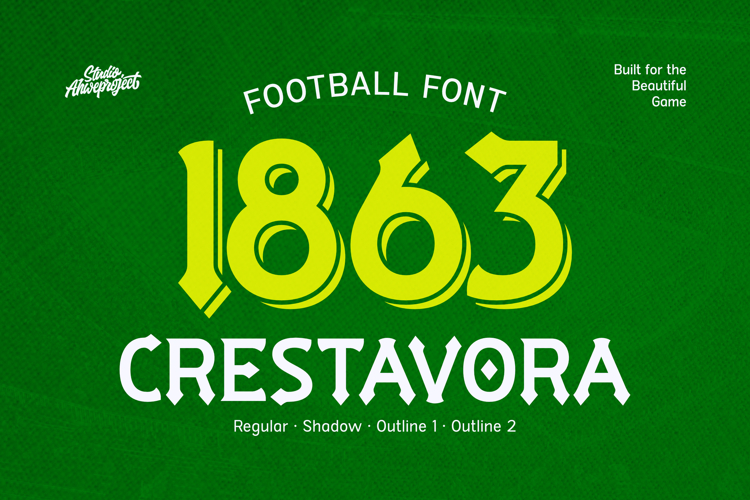
Crestavora
Crestavora is a bold decorative football font inspired by the powerful character of classic English football crests. Its sharp serifs, angular cuts, and distinctive letter shapes create a fierce, competitive look that immediately captures the spirit of the beautiful game.
Designed to deliver a strong visual impact, Crestavora is an excellent choice for football jerseys, player names and numbers, team logos, club branding, matchday posters, tournament graphics, sports headlines, merchandise, apparel, banners, badges, and social media content. Its bold structure remains highly noticeable at large sizes, making it especially effective for titles, logos, and statement typography.
Crestavora includes four complementary styles: Regular, Shadow, Outline 1, and Outline 2. Use the Regular style for clean and powerful lettering, add Shadow for greater depth, or choose the Outline styles to create striking layered compositions. These styles can be combined to produce dynamic typography with a custom, dimensional appearance.
Although created with football culture in mind, Crestavora also works well for other sports designs, esports branding, vintage emblems, athletic apparel, school teams, masculine packaging, and competitive event promotions. Its combination of traditional crest-inspired details and bold modern construction gives every design a confident and memorable identity.
Bring the energy of the stadium into your next project with Crestavora—a powerful sports display font built for teams, supporters, and the beautiful game.